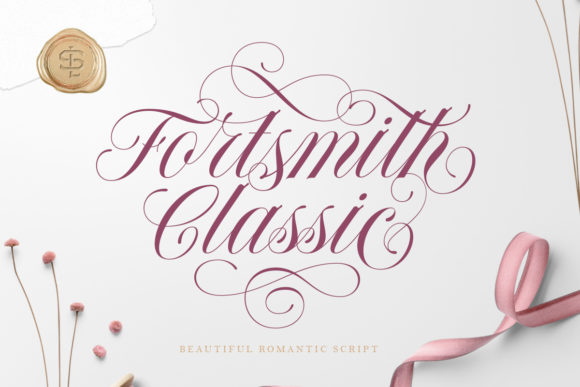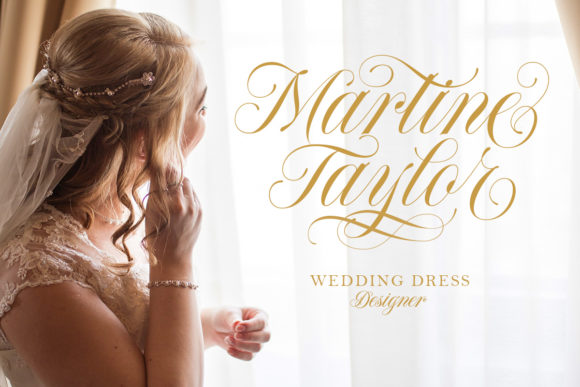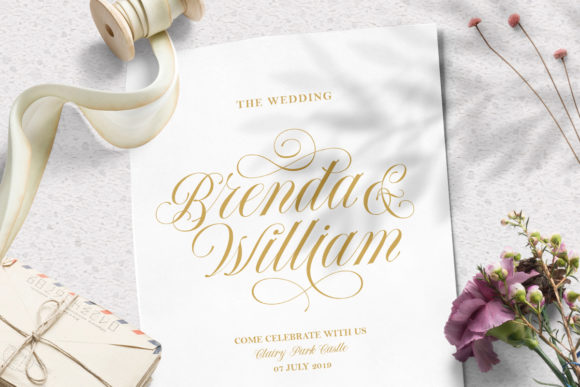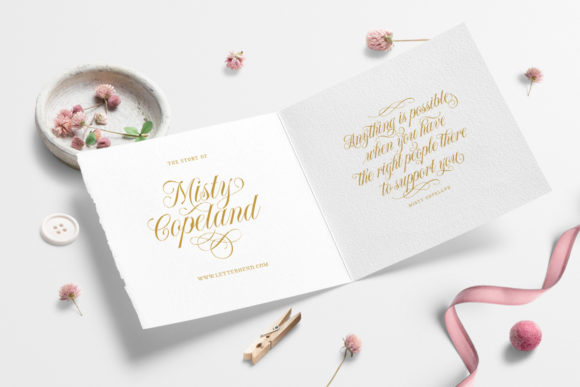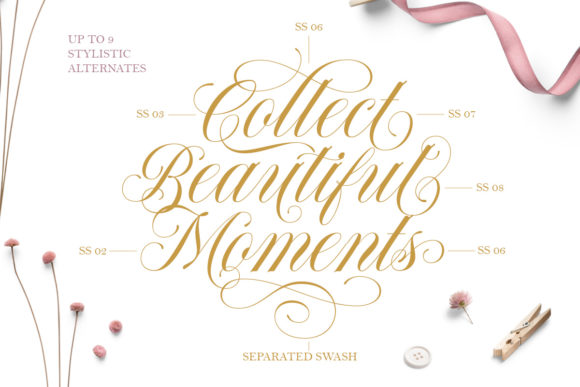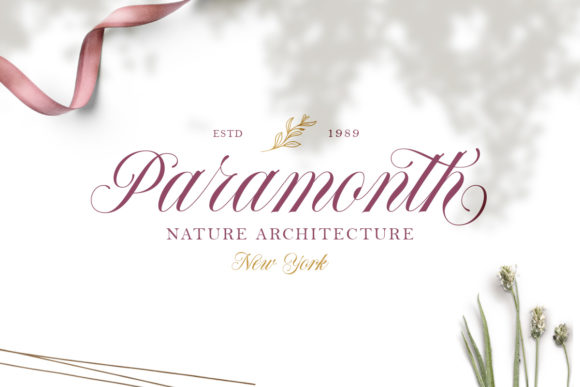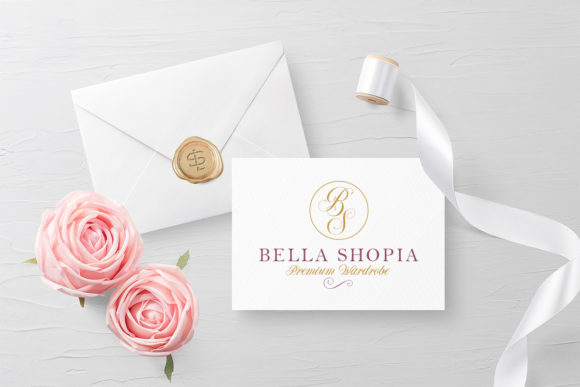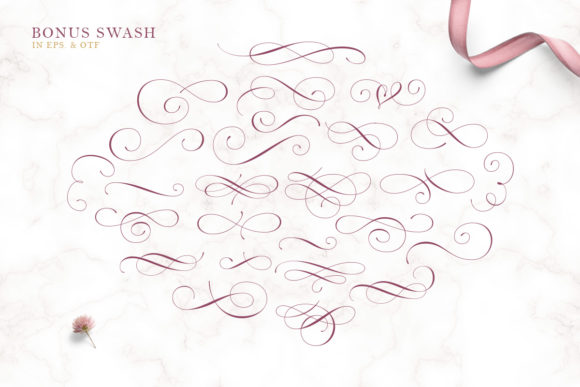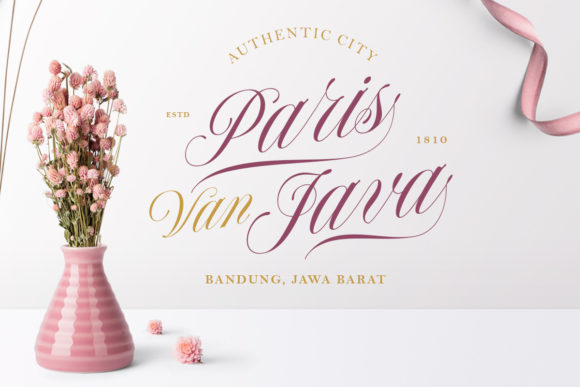
Forth Smith Font
About Forth Smith Font
Forth Smith pays tribute to classic calligraphy with its incredibly elegant swashes and heartfelt alternates. Fall in love with its romantic appeal!